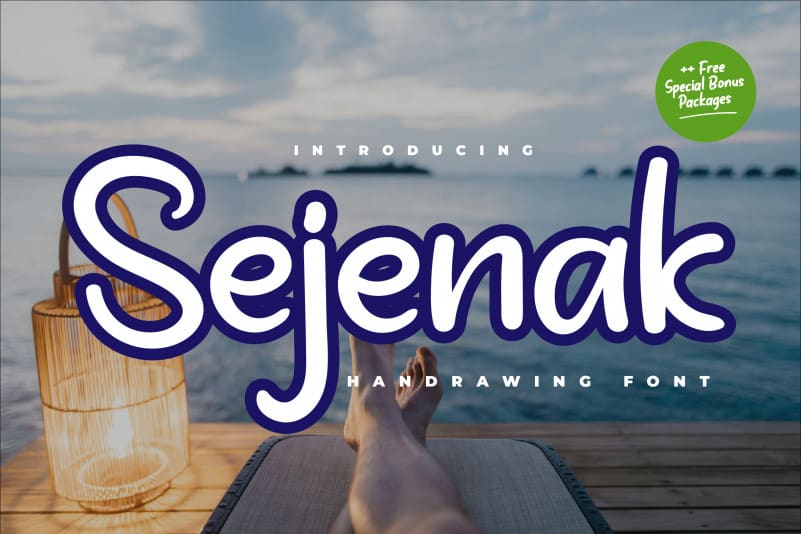
Sejenak Display Font
Sejenak Display Font is a sweet and friendly display typeface. Its natural and unique style makes it incredibly fitting to a large pool of designs. The only limit is your imagination!